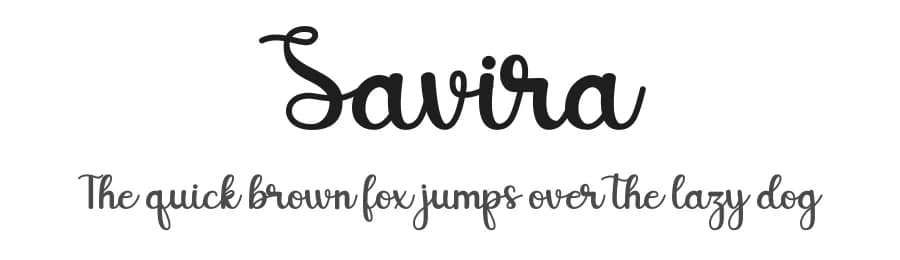
About Savira Font
| Designer | Faris Graphic Art |
Savira Font is a script font that shines as a display or heading face. Pair it with a clean sans-serif or serif font for body text β the contrast creates a clear hierarchy while the two styles stay balanced and easy to read.
Savira Font